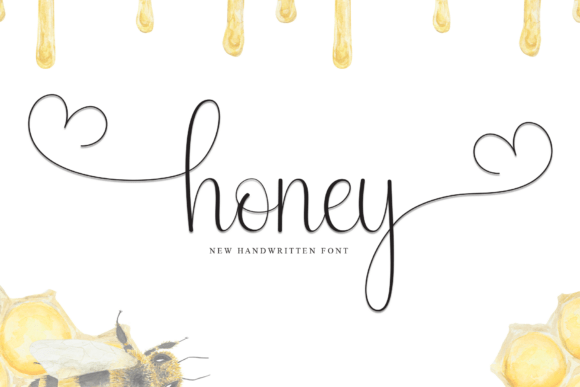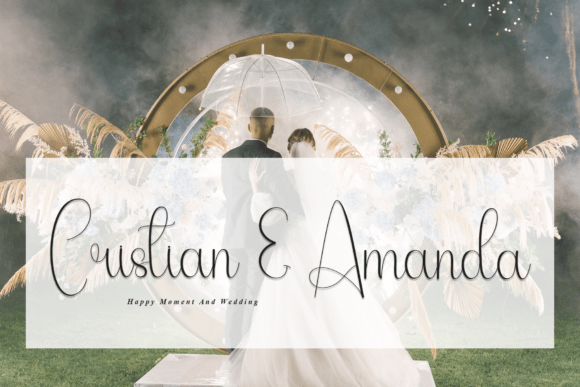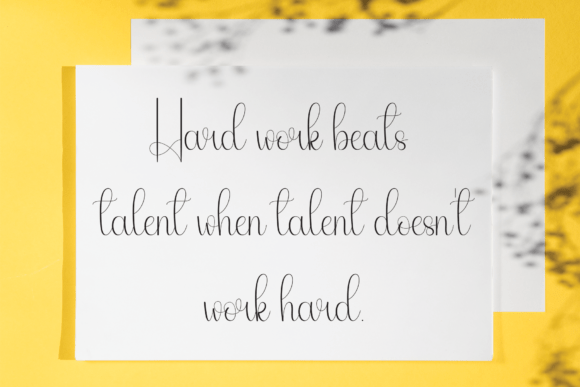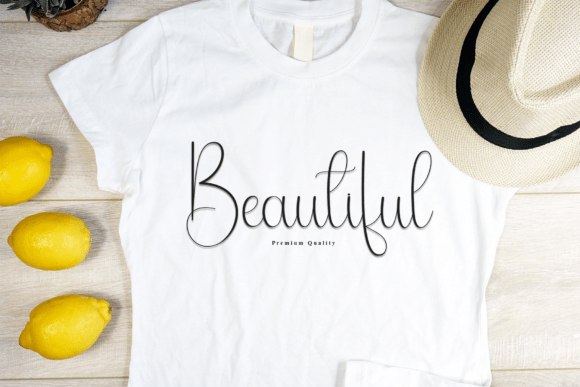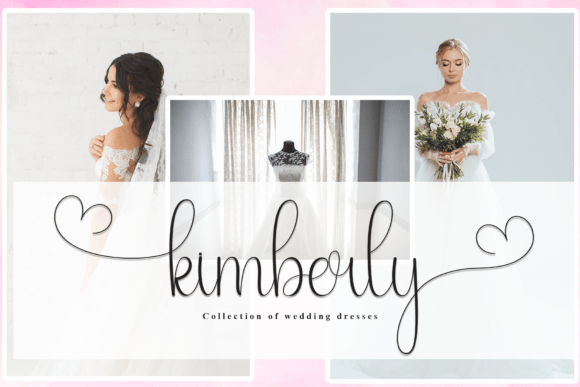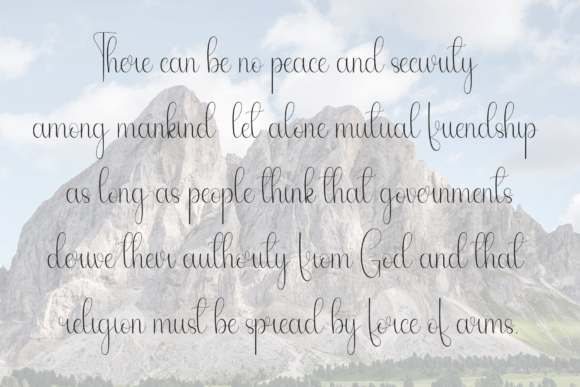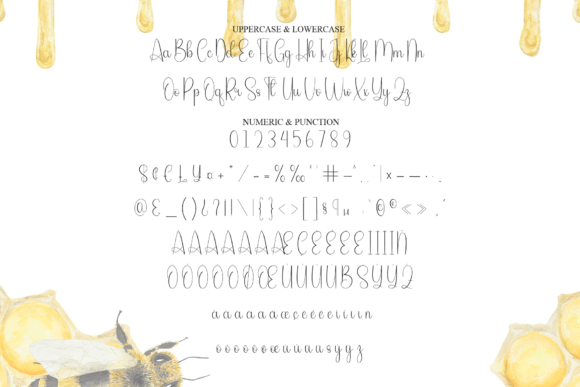
The Sweet Spot in Design: Introducing Honey Font
Have you ever stumbled upon a font that makes you swoon, like stumbling upon a hidden garden on a warm summer day? For designers, it’s a moment of pure joy, and it’s exactly what happens when you come across Honey Font. This elegant, handwritten script font is a masterclass in refinement, with its fluid strokes and smooth curves that transport you to a world of sophistication and charm.
Whether you’re crafting a bespoke brand identity, designing an invitation, or creating stationery that exudes warmth and personality, Honey Font is the perfect companion. Its timeless, refined look adds a personal touch that elevates any design, making it a valuable asset for designers who crave unique and memorable creations. With Honey Font, you can infuse your designs with the warmth and elegance that comes from a handwritten touch.
Honey Font Key Features
- Unique Characteristics: Honey Font features a distinctive, hand-drawn style with a warm and inviting tone, making it perfect for creative projects, branding, and packaging design.
Honey Font Review
Overall, I think Honey Font is a great addition to any design project. It’s ✨ elegant and sophisticated, making it perfect for luxury brands or high-end products. The font is ✨ highly customizable, with a wide range of weights and styles to choose from, allowing designers to create a unique look that fits their brand’s identity.
One of the things I love about Honey Font is its ✨ legibility. The font is easy to read, even at smaller sizes, making it perfect for body text or headlines. The font also has a ✨ modern feel to it, which makes it a great choice for contemporary brands or designs.
- ⚠️ Limited language support: Honey Font currently only supports Latin script, which may limit its use for brands or designs that require other languages.
- ⚠️ Not ideal for low-resolution designs: Honey Font is a high-resolution font, which means it may not look its best in low-resolution designs or on older devices.
Overall, I think Honey Font is a great choice for designers looking for a sophisticated and elegant font. While it has some limitations, the benefits far outweigh the drawbacks. I would highly recommend Honey Font to anyone looking to add a touch of luxury to their design project.
Tips for Getting the Most Out of Honey Font
1. Experiment with different font sizes and styles to create visual interest.
2. Use Honey Font in conjunction with other design elements to create a cohesive look.
3. Consider using Honey Font in headings or titles to add emphasis.
2. Branding and logo design.
3. Packaging design.
Alternatives to Honey Font for Designers
Great Vibes is a beautiful, modern script font that’s perfect for adding a touch of elegance to your designs. It’s ideal for use in logos, branding, and other creative projects where you want to convey a sense of sophistication and style. Great Vibes is a more refined and polished alternative to Honey Font, with a more consistent and cohesive feel.
Carolyna Pro is a modern script font with a unique, hand-drawn feel. It’s great for use in headings, titles, and other areas where you want to add a touch of personality and whimsy to your designs. Carolyna Pro is a bit more playful and experimental than Honey Font, making it perfect for designers who want to add a bit of edge to their work.